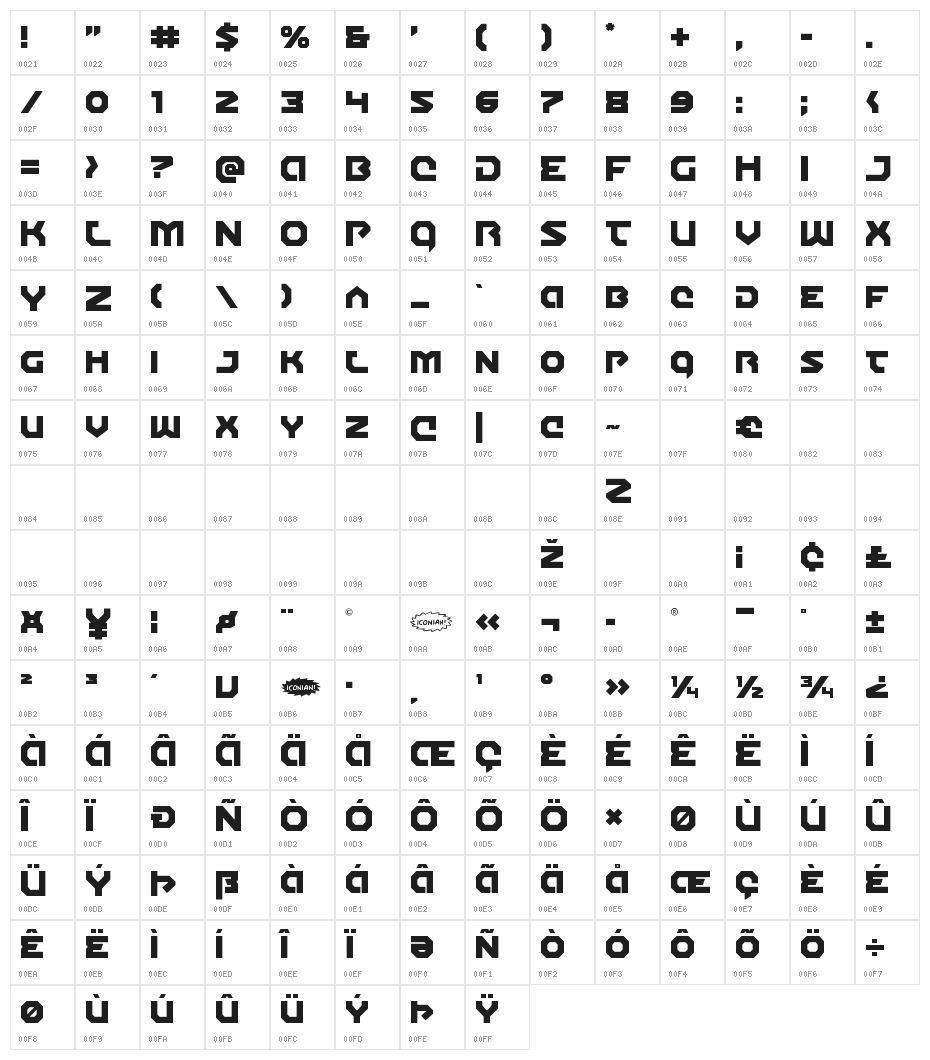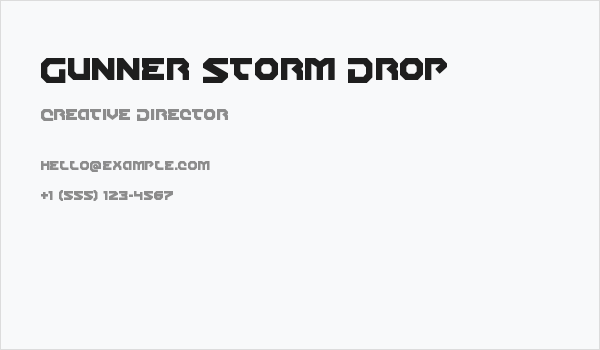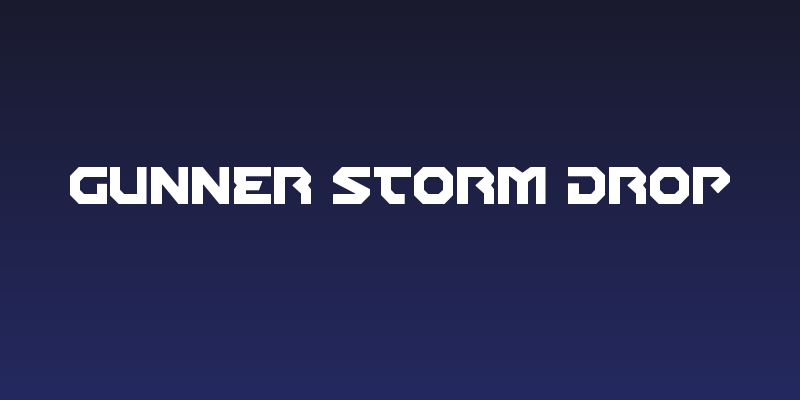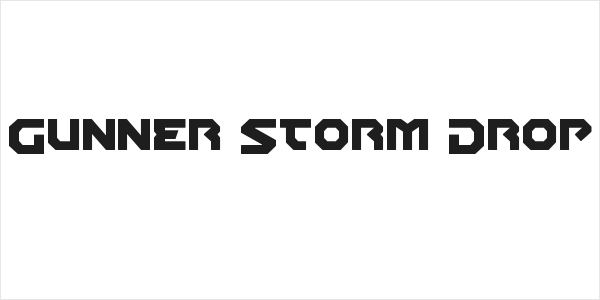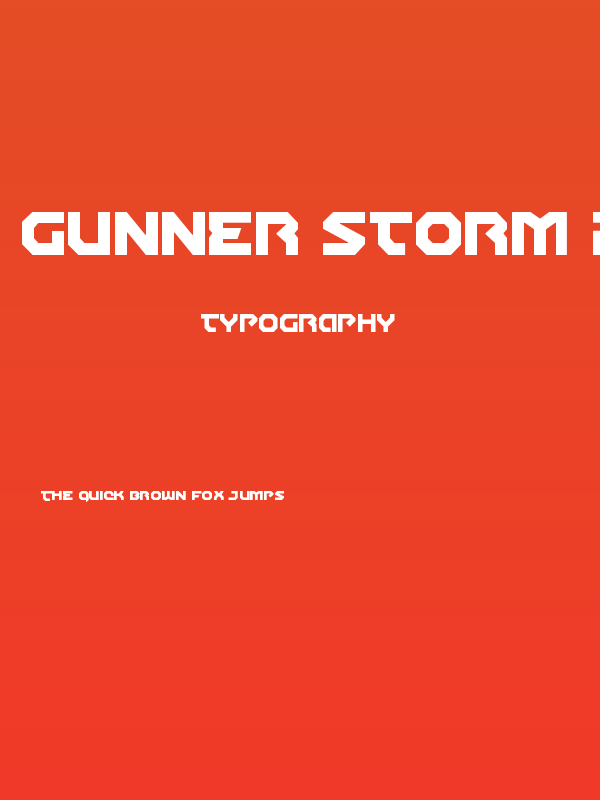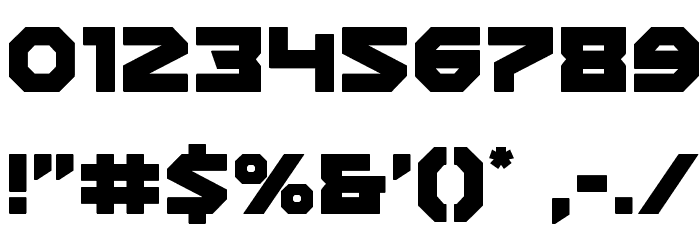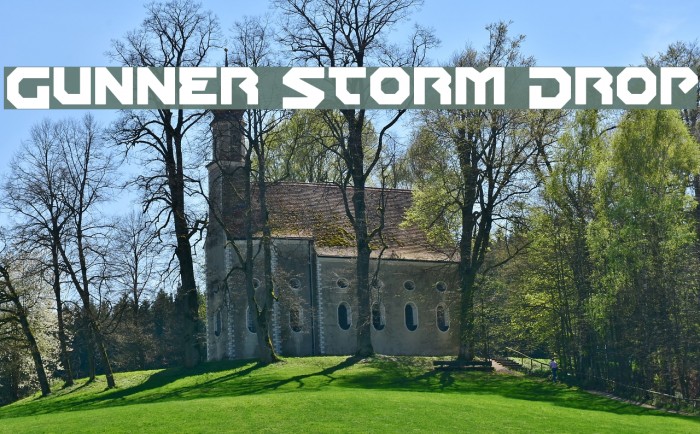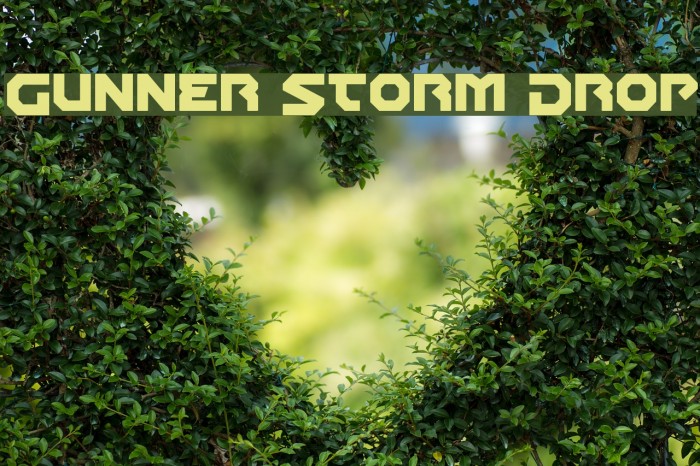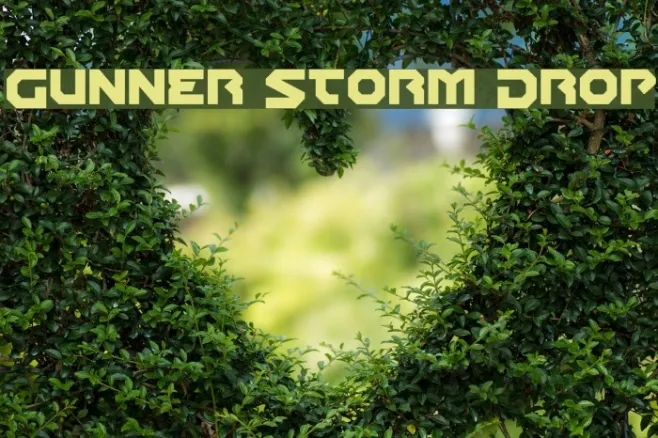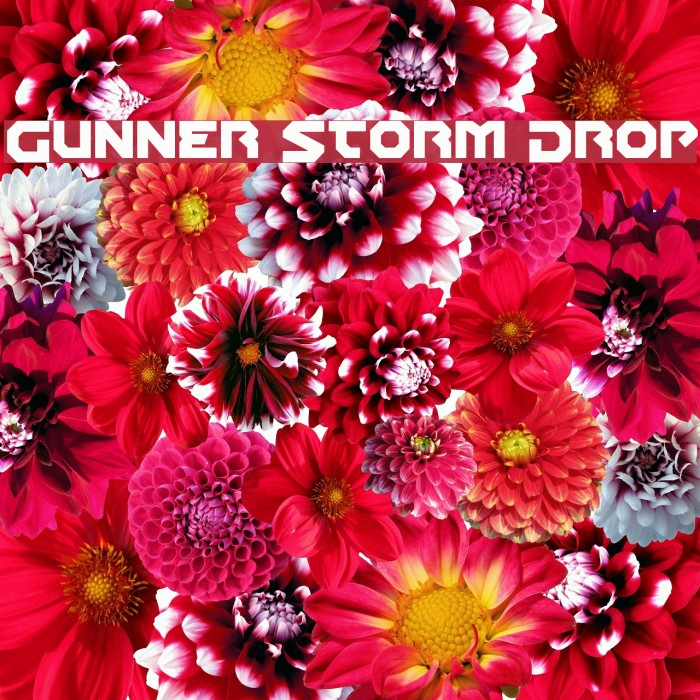
Gunner Storm Drop Font
Gunner Storm Drop Description
This font features a bold and angular design, characterized by its geometric shapes and sharp edges. The uppercase and lowercase letters maintain a consistent blocky appearance, giving it a strong and impactful presence. The numbers and special characters follow the same design principles, ensuring uniformity across all elements. The style is reminiscent of futuristic or military themes, making it ideal for projects that require a robust and commanding visual impact.
| Overall Style | Futuristic, Military |
| Proposed Projects | Ideal for video game titles, movie posters, branding for tech or defense companies, and any project needing a strong, futuristic aesthetic. |